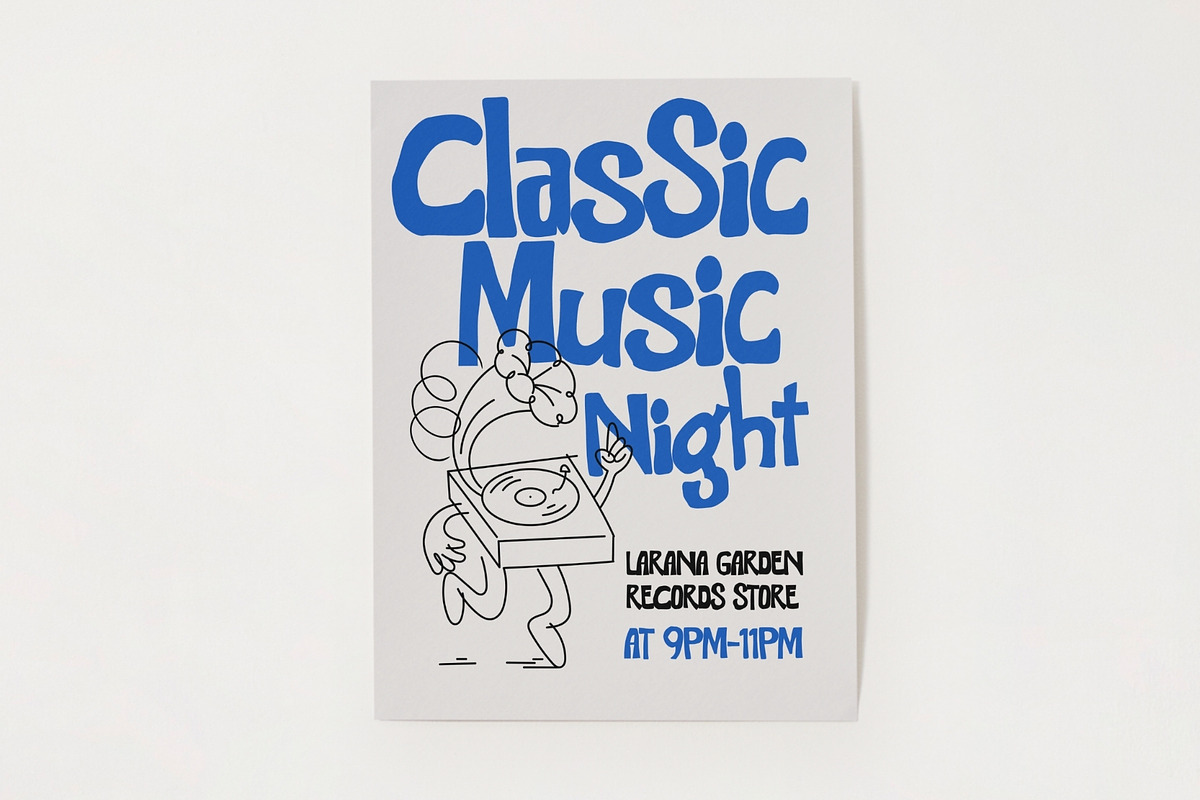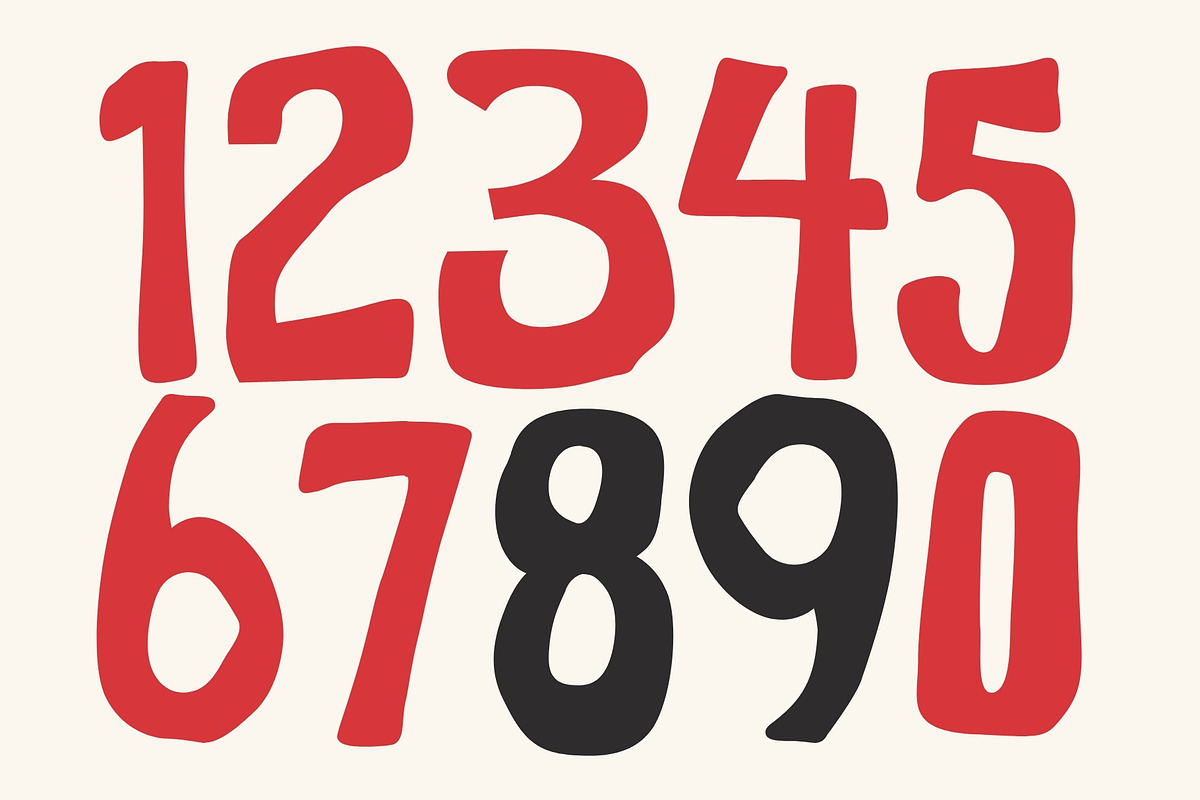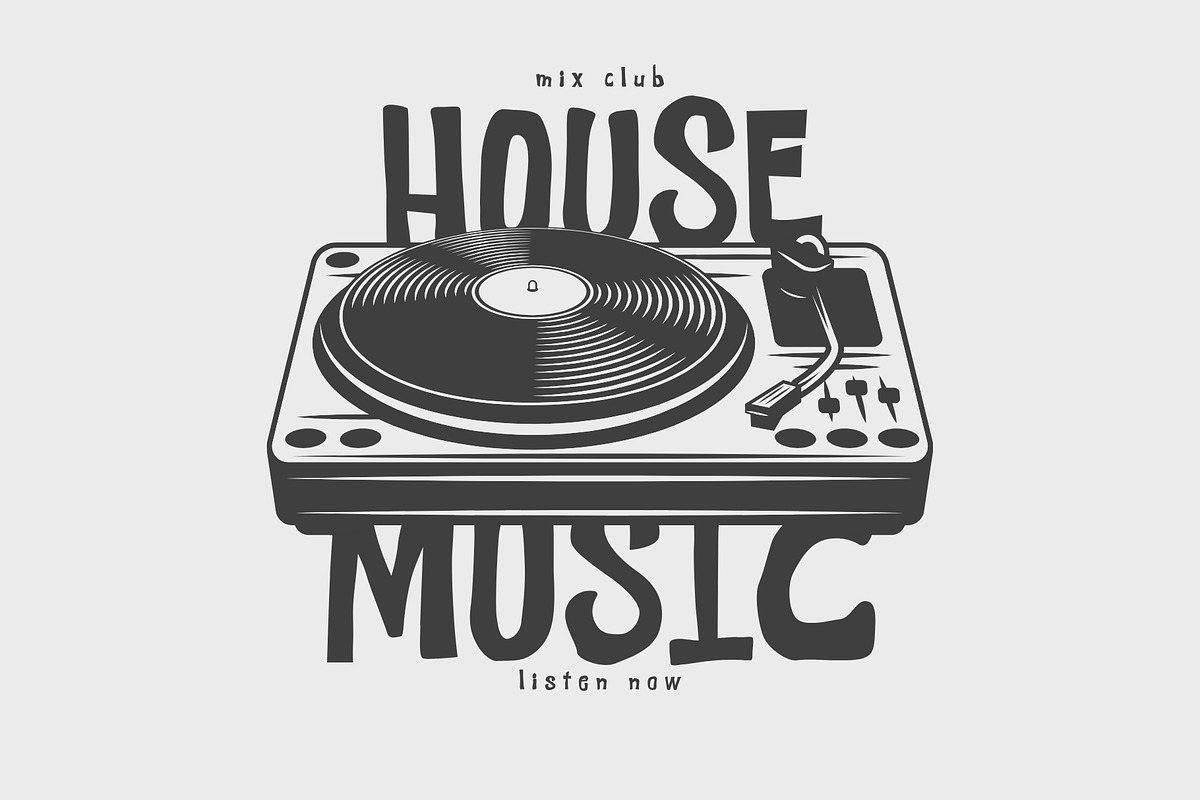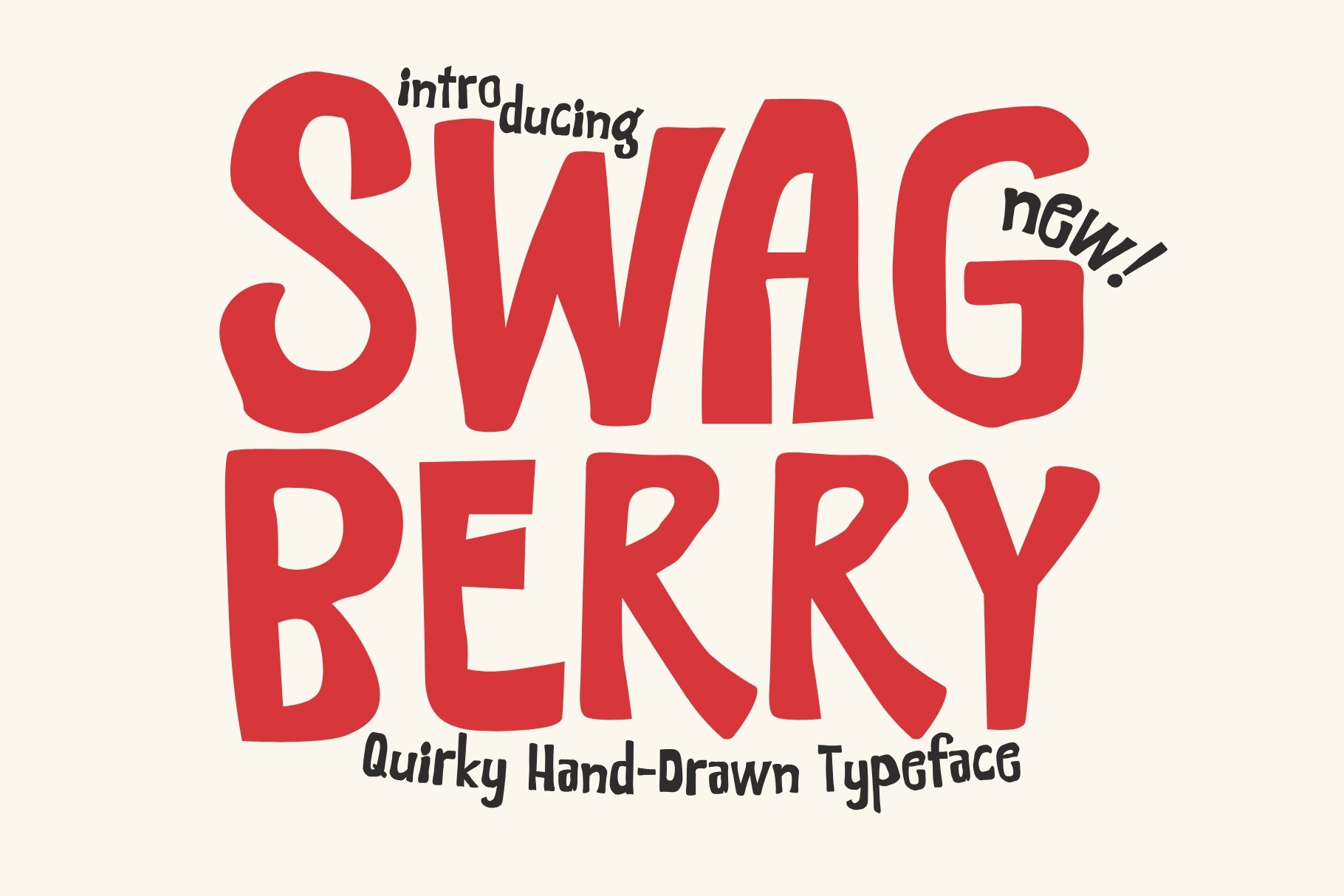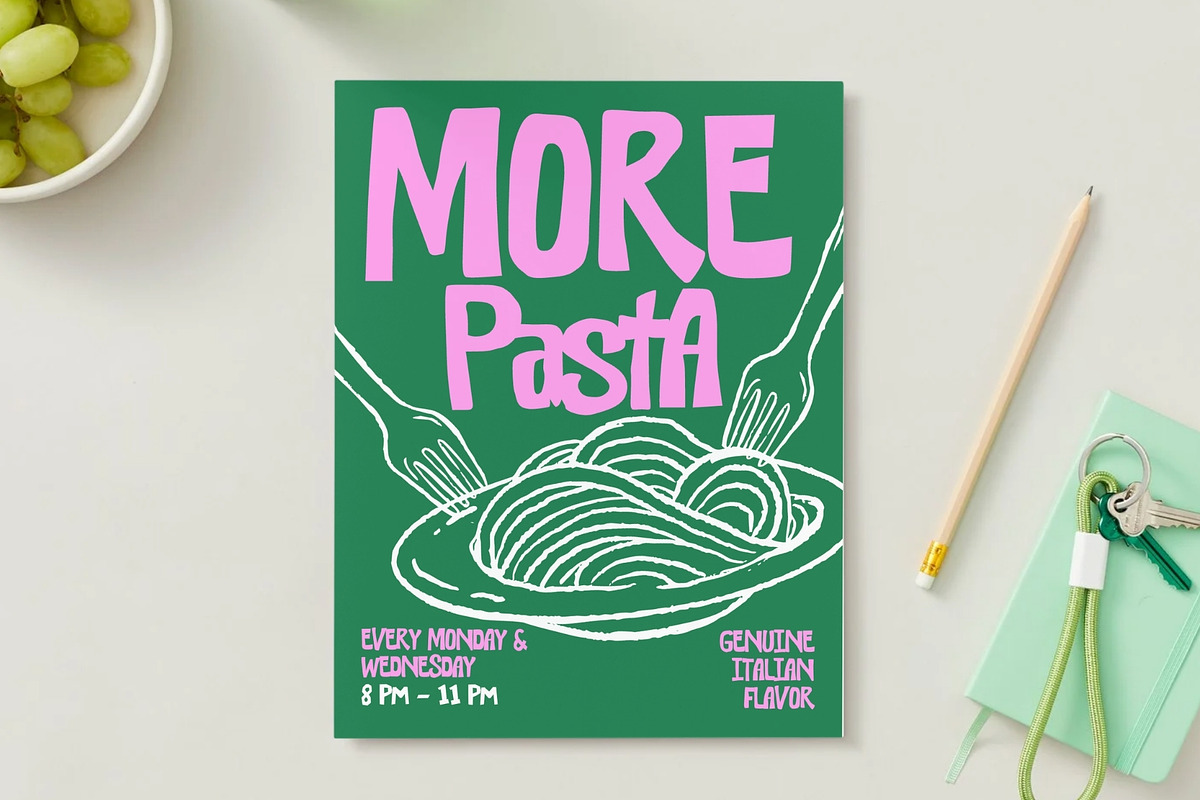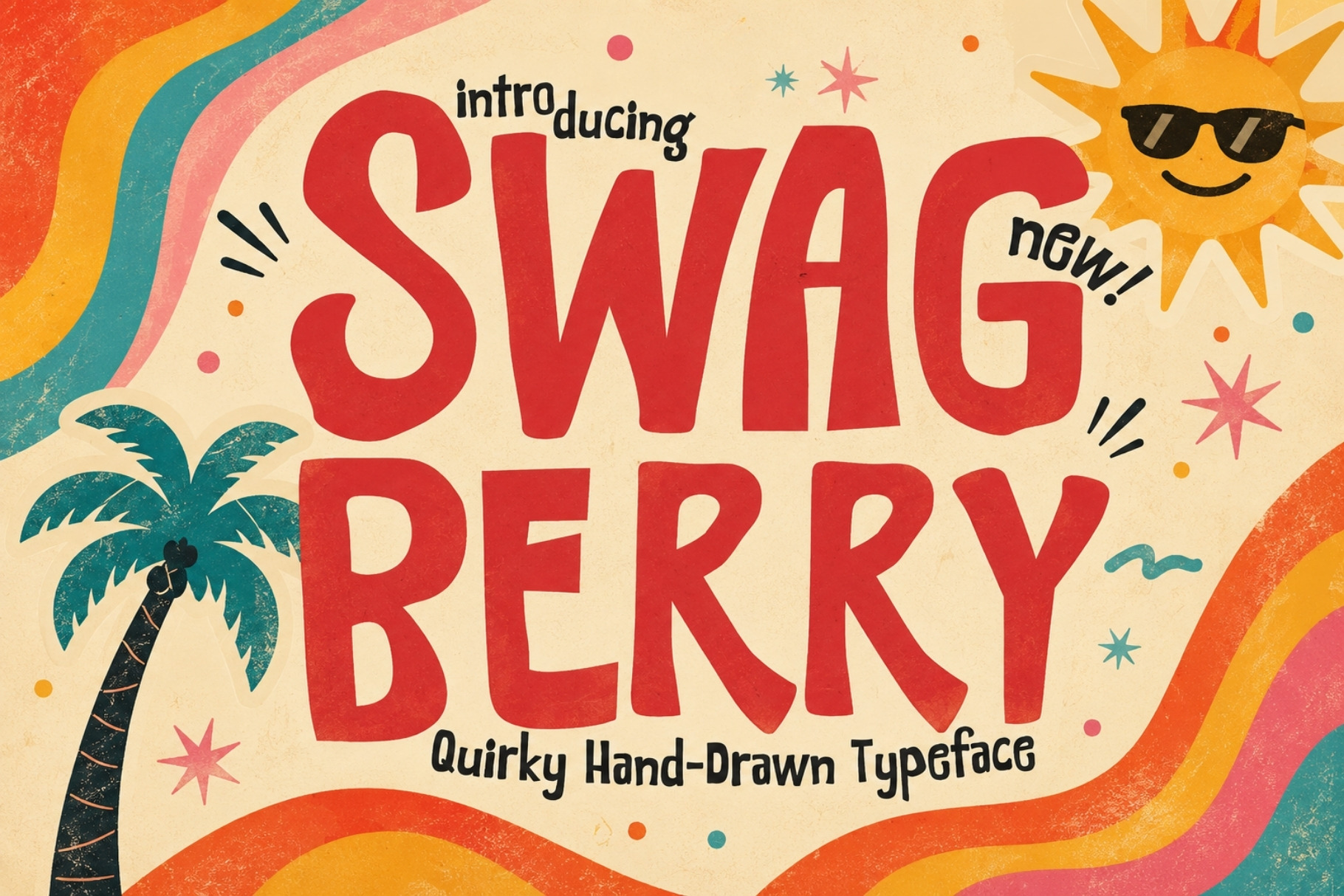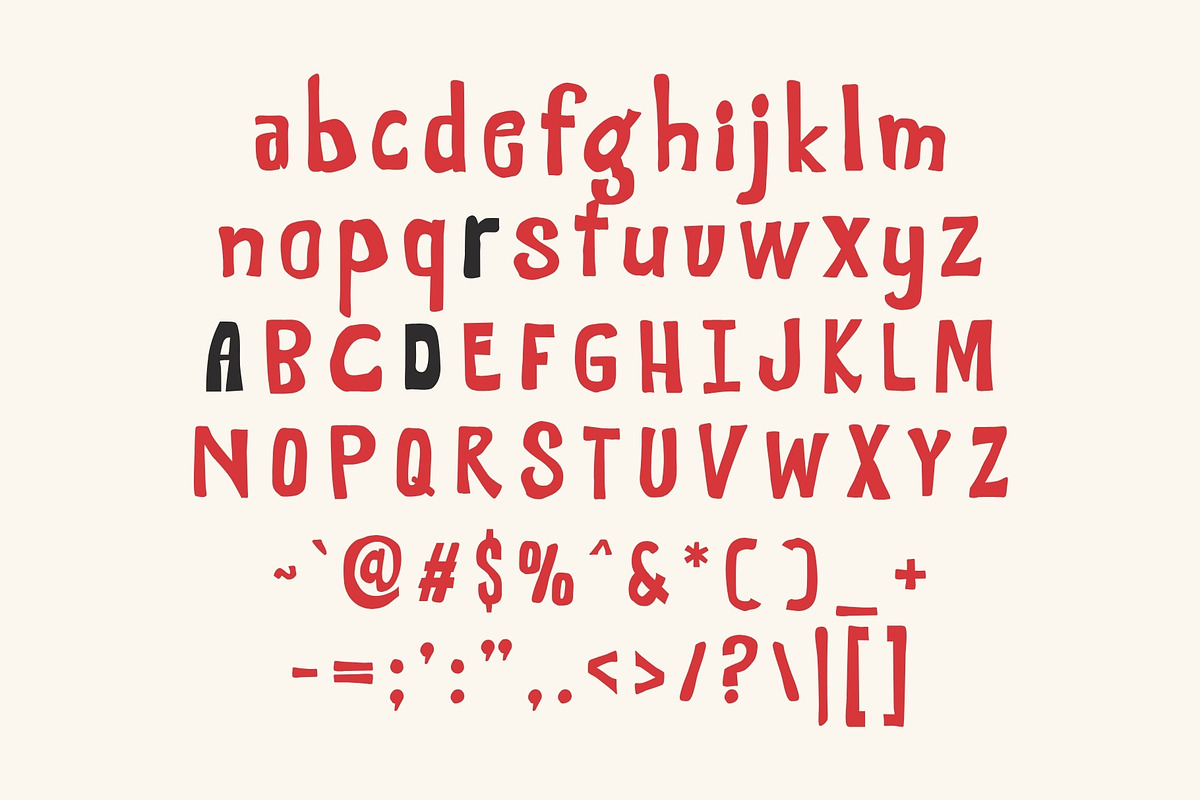
Swagberry - Handdrawn Typeface
Say hello to Swagberry, a bold and funky hand-drawn typeface bursting with playful energy, retro charm, and youthful personality. Designed with expressive curves and a laid-back attitude, Swagberry brings a vibrant, carefree vibe to any design it touches.
This quirky display font embraces imperfection in the best way — its organic shapes and casual flow give it a natural, hand-crafted feel that stands out from clean, rigid typography. The result is a font that feels fun, friendly, and full of character.
Swagberry’s retro-inspired style makes it perfect for designs that want to feel nostalgic yet modern. Its bold presence ensures your text doesn’t just sit on the page — it pops, grabs attention, and leaves a lasting impression.
Whether you're creating bold headlines or playful branding, Swagberry delivers a dynamic and expressive typographic voice.
✨ Font Features
Hand-drawn quirky display style
Bold and expressive letterforms
Retro-inspired curves and shapes
Playful and youthful personality
Eye-catching, high-impact design
🎨 Perfect For
Posters & bold headlines
Packaging design
Logo design
Creative branding
Stickers & fun layouts
Event graphics
Youthful design projects
Swagberry is all about energy, creativity, and personality. It’s the perfect choice when your design needs to feel fun, vibrant, and effortlessly cool.
If you're looking for a font that brings playful retro vibes with a modern twist, Swagberry is ready to shine.